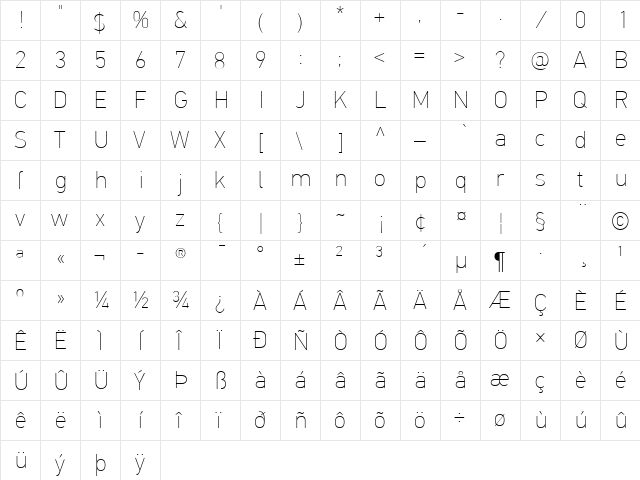
PF DinText Pro ExtraThin
| Foundry | Parachute蠗orldwide |
| Designer | Panos Vassiliou |
Design Context for PF DinText Pro Typeface
PF DinText Pro takes a measured approach to typography — its balanced proportions and neutral character make it a reliable workhorse for both digital and print work. The delicate stroke weight brings airiness and refinement to layouts.